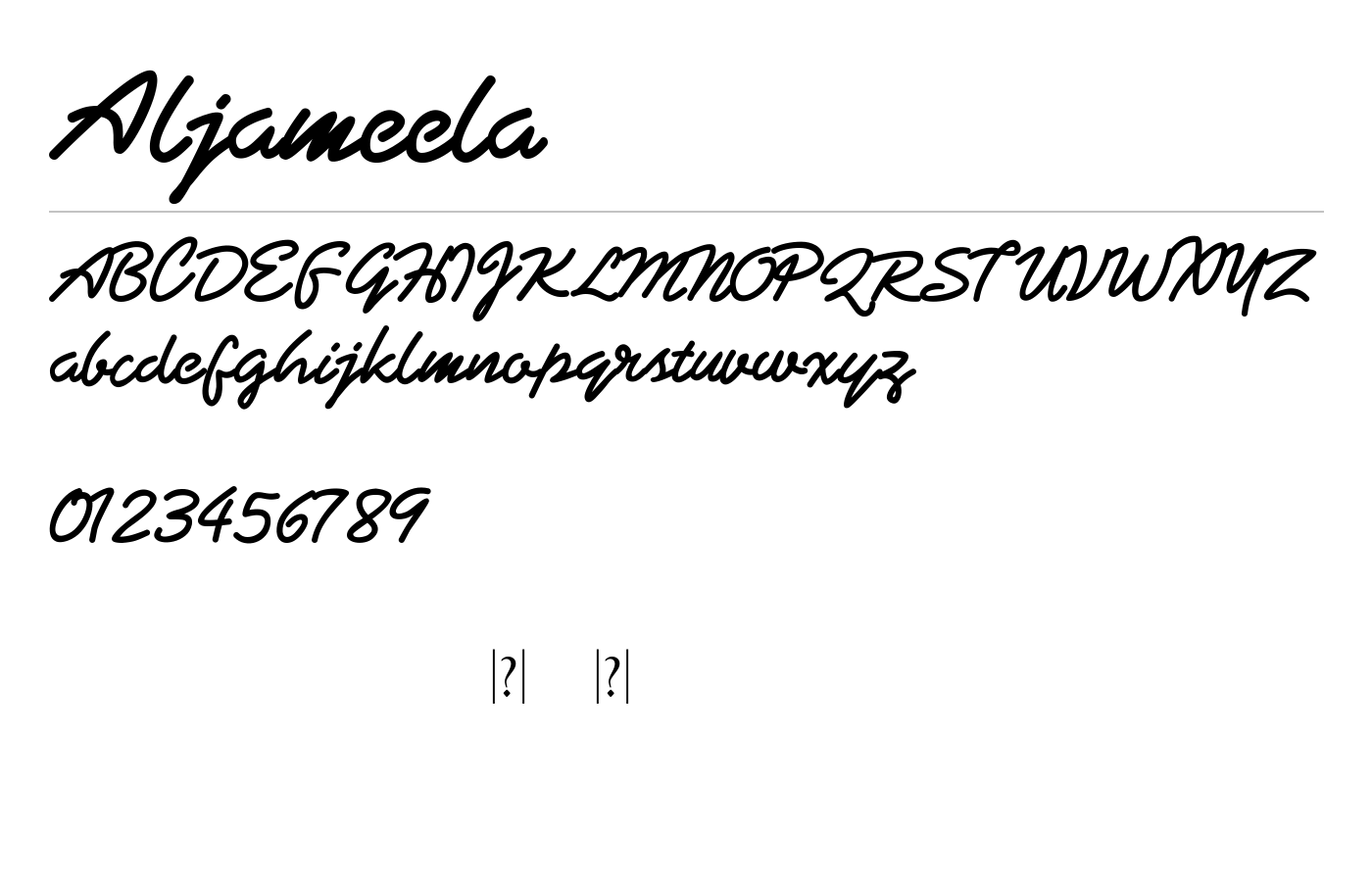
Aljameela is a flowing, handwritten script font that features smooth, medium-weight strokes with a consistent width and a natural, casual elegance. Its letters connect gracefully, displaying a friendly and approachable personality, making it perfect for invitations, branding, and creative projects that desire a personal and stylish touch. This font stands out in designs that benefit from a hand-crafted feel while maintaining readability and charm.
Aljameela Font
About Aljameela Font
| Font family | Aljameela Font |
| Trademark | Aljameela by niznaztype studio |